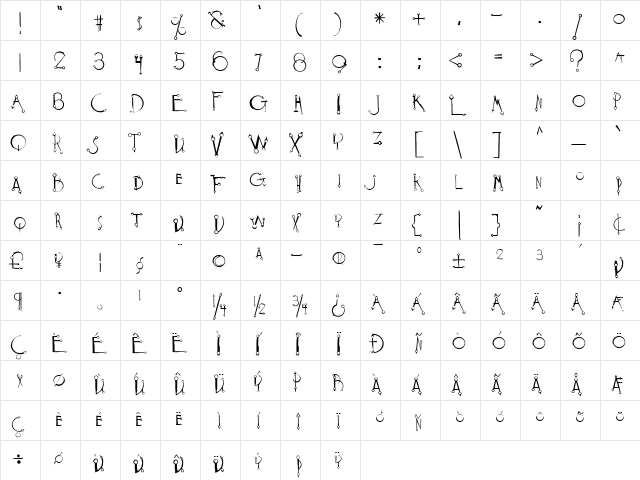
Epicure Regular
| Foundry | Epicure -Alternate \ Lunchbox Design, By Adam Roe, |
Design Context for Epicure Typeface
Epicure is a composed and adaptable typeface that performs quietly and consistently across a wide range of design contexts.